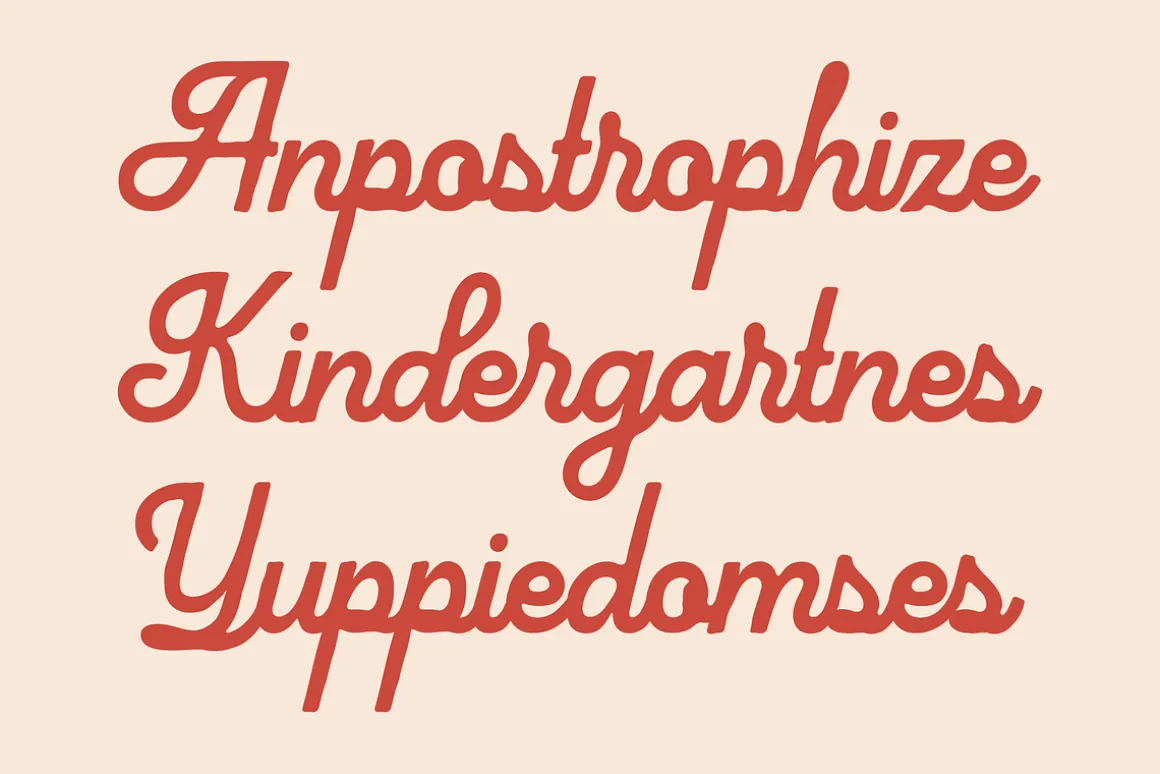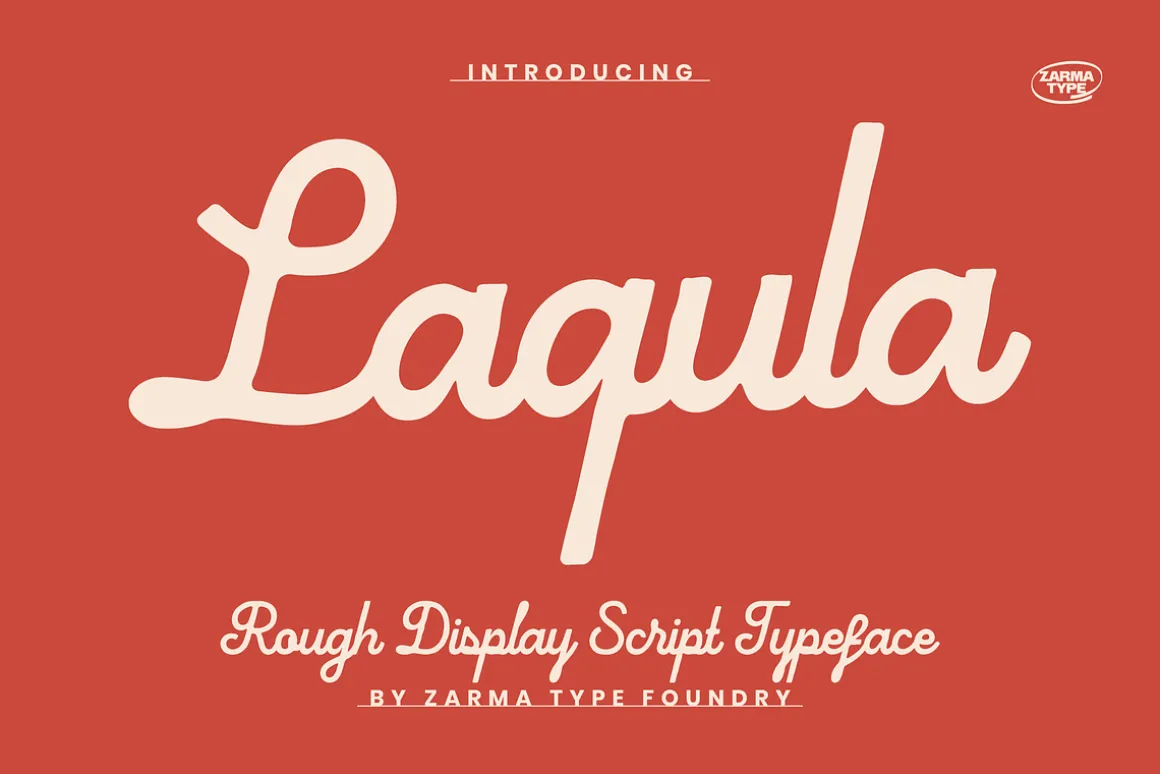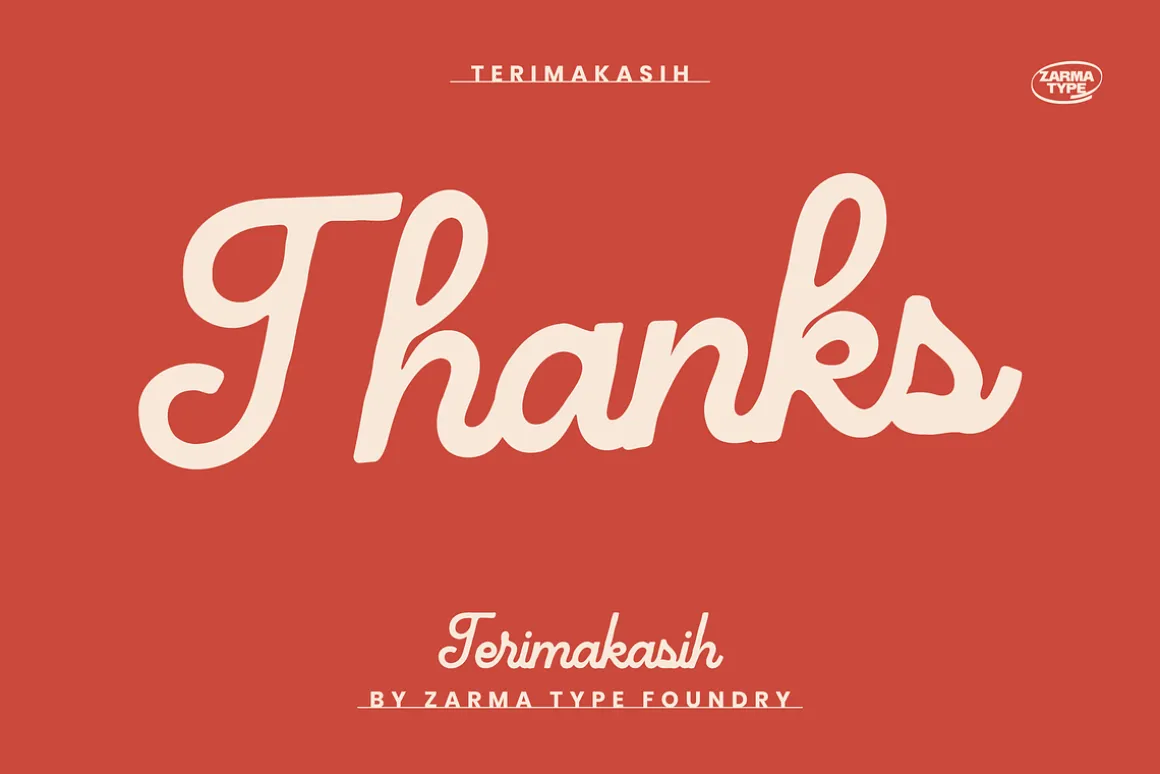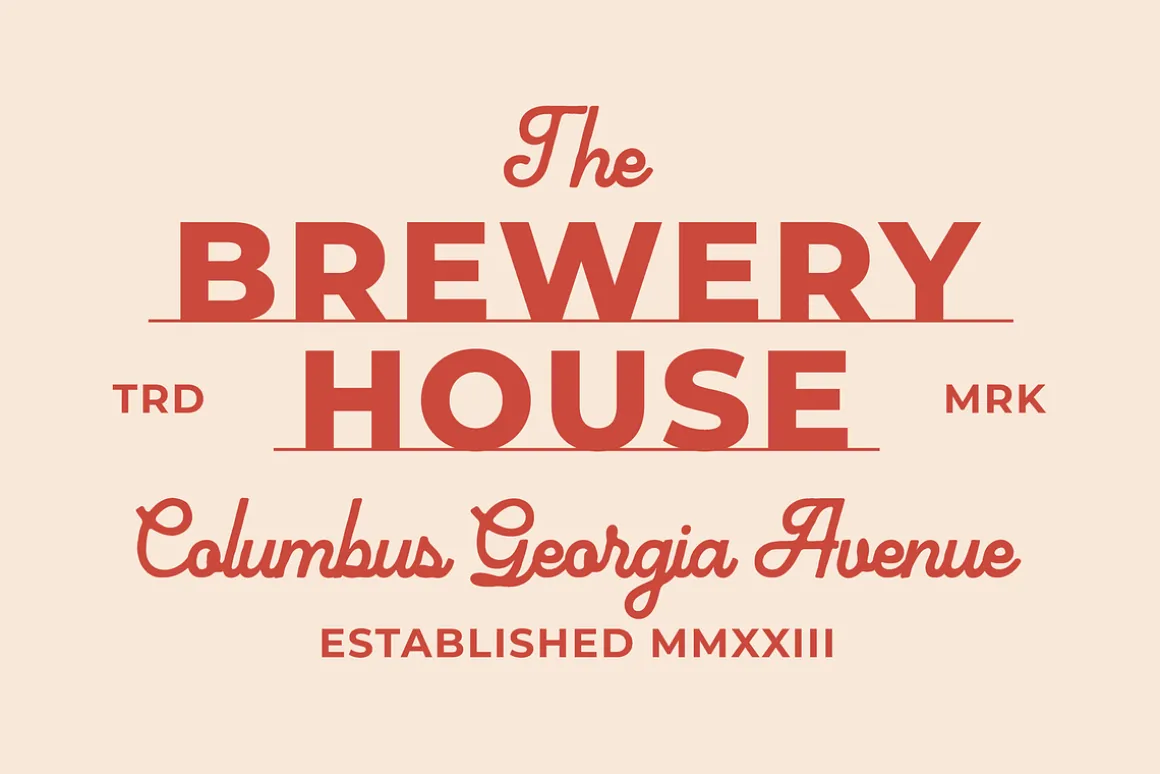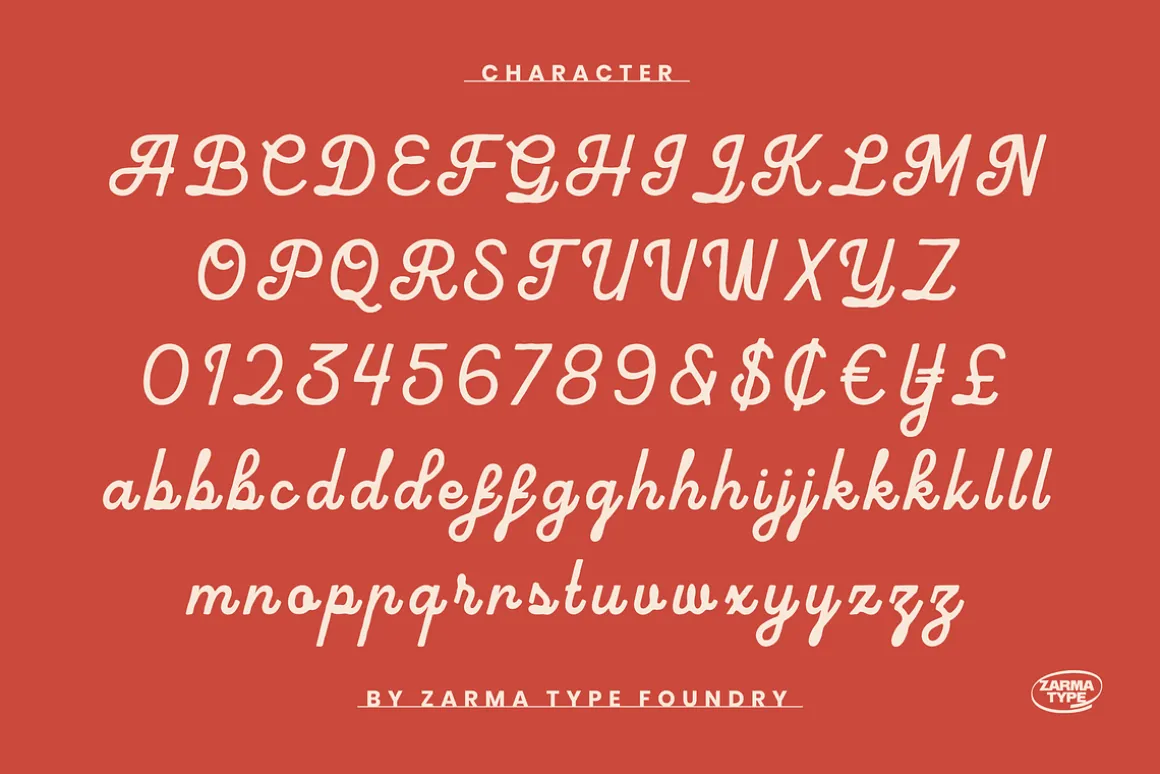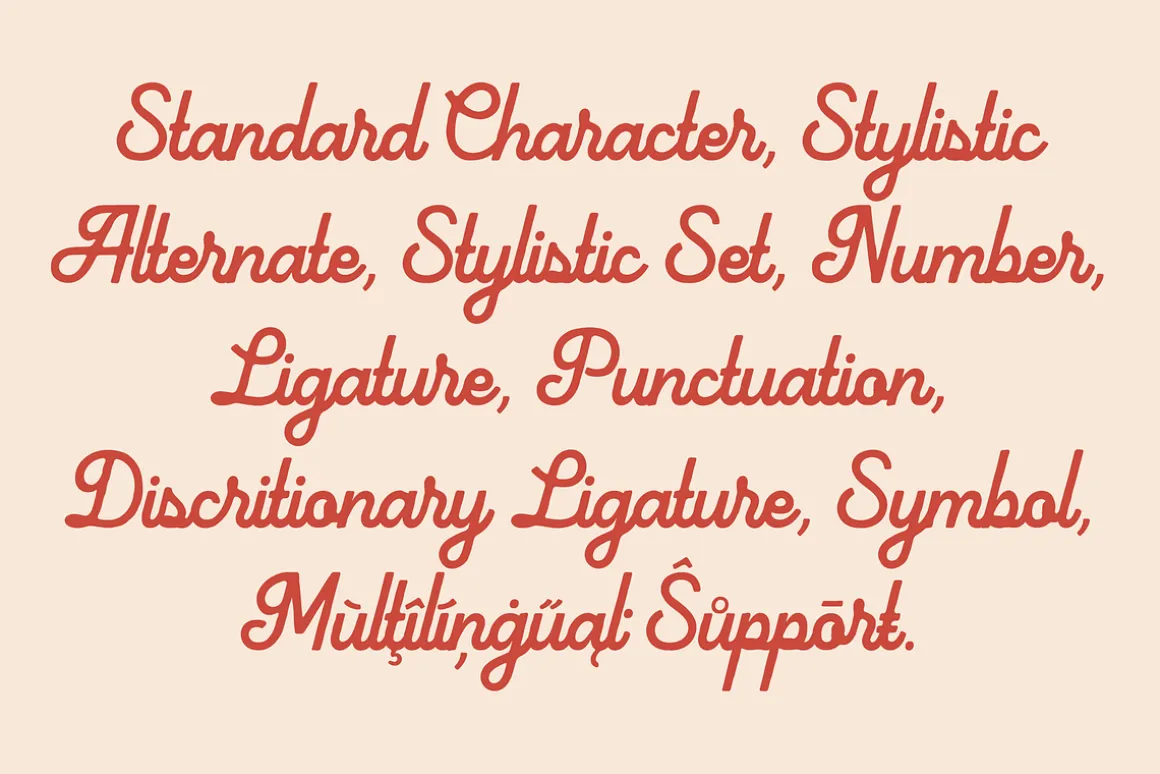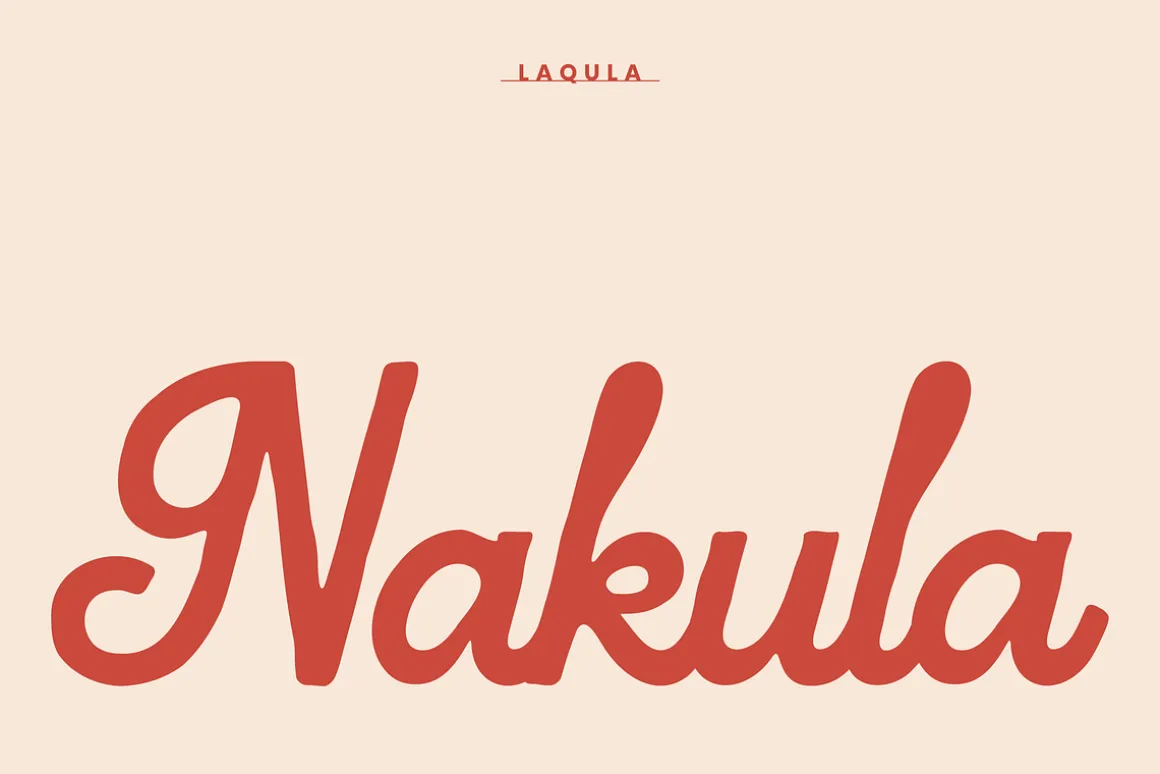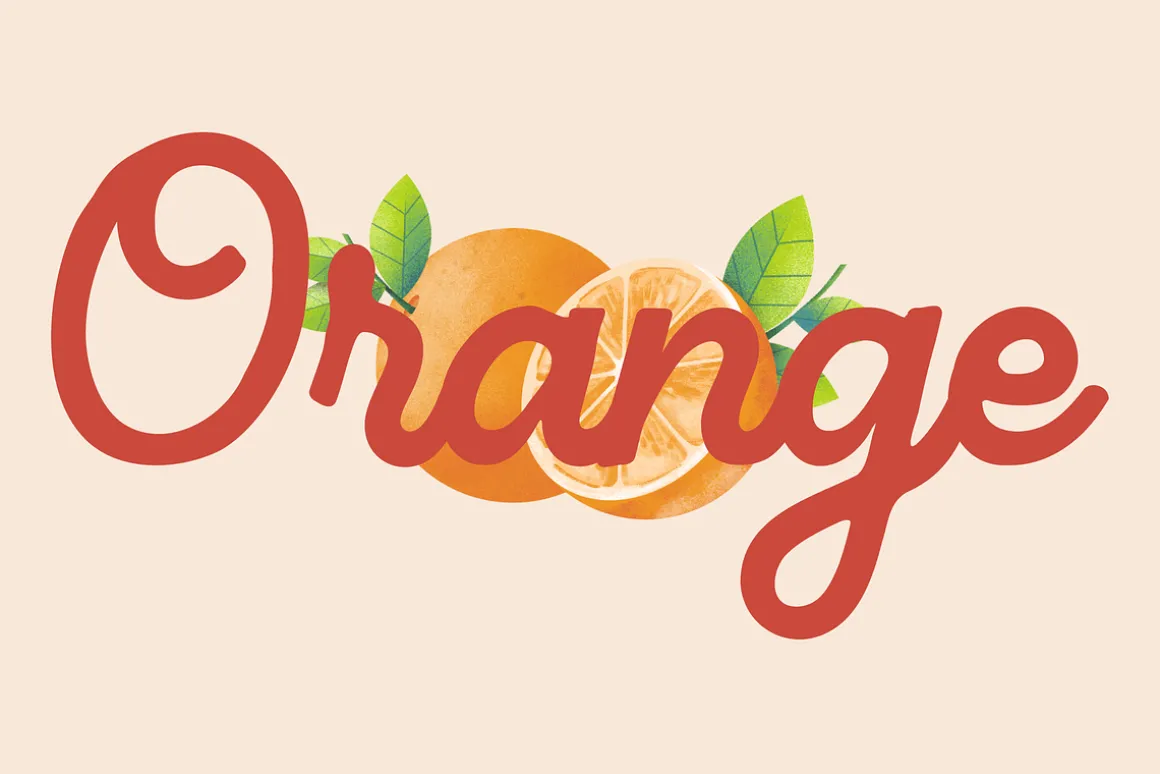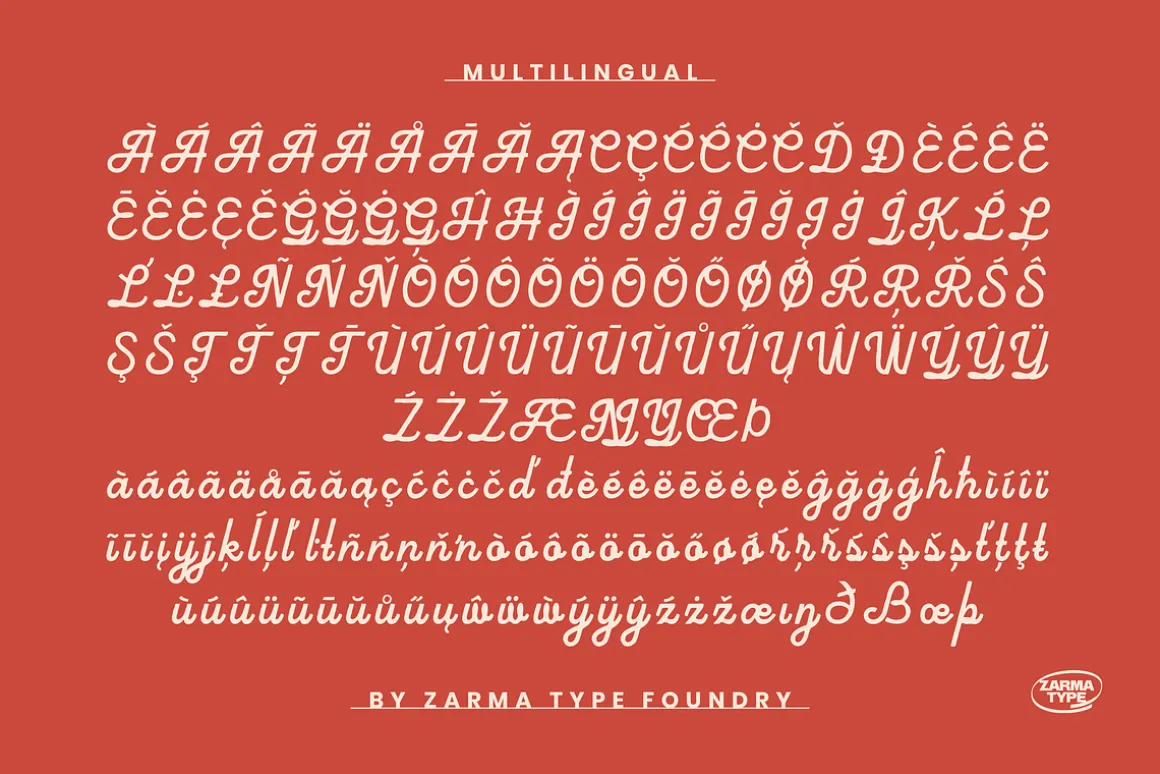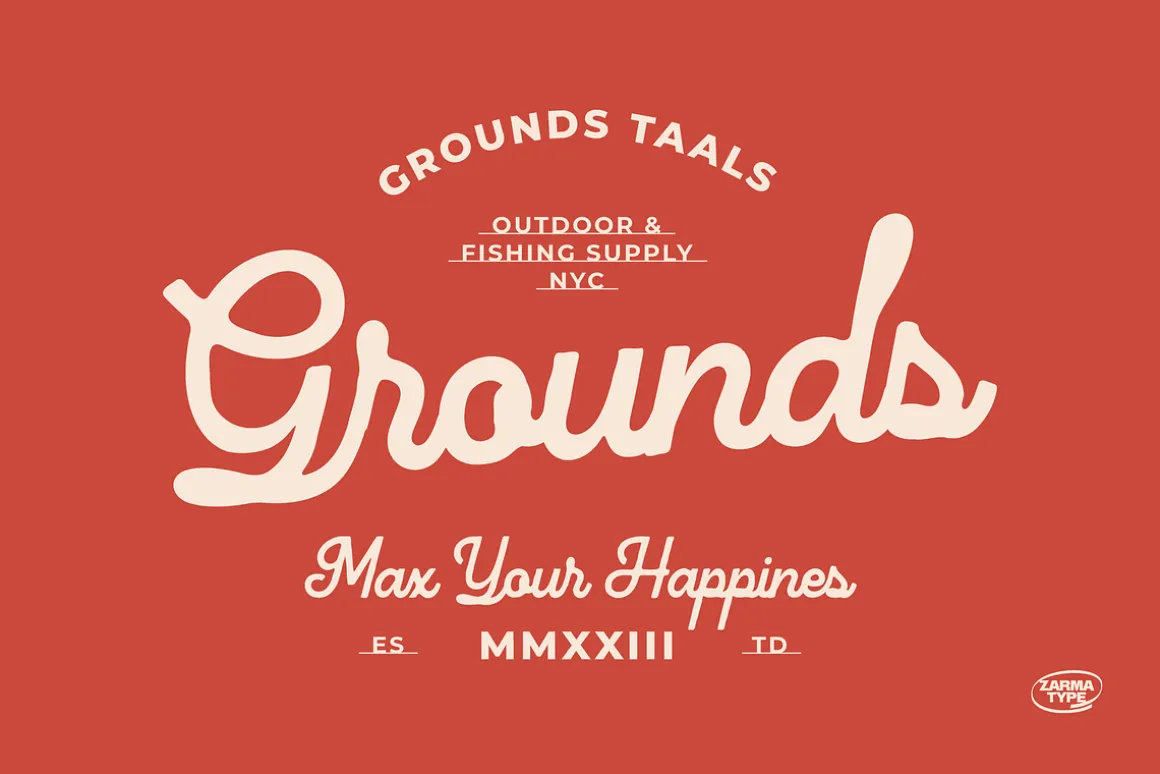
Rough script font Laqula, a captivating script font blending classic charm with modern sophistication, ideal for adventures, beach themes, and outdoor projects. Its bold, hand-drawn, cursive script style embodies California vibes, making it perfect for branding, logos, and logotypes. With a touch of retro and grunge, Laqula adds a unique, vintage flair to your designs, from holiday promotions to typography projects. Embrace its signature charm and elevate your creativity with this distinctive script typeface. Get rough script font Laqula now! Let your designs come to life with its unique character and versatility.